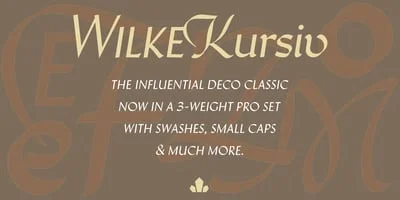
Wilke Kursiv Font
Wilke Kursiv Font is perfect for academic publications, scholarly documents, literary magazines, formal certificates, traditional book covers, classical music programs, heritage museum displays, and prestigious institutional branding.
This font is exciting because it embodies classical scholarship with academic elegance and traditional sophistication. Wilke Kursiv Font features refined italic letterforms with scholarly grace that evoke the distinguished tradition of European academic typography, making it ideal for projects that require intellectual authority and timeless academic prestige.
The Wilke Kursiv Font family includes regular, light, medium, bold, and condensed variants, along with scholarly alternates and classical ligatures that enhance its academic character. Each weight maintains the font's intellectual aesthetic while providing different levels of formal expression for various educational and scholarly design applications.
Whether you're developing prestigious educational brands, creating distinguished academic materials, or designing formal institutional campaigns, Wilke Kursiv Font delivers exceptional scholarship and academic appeal. Its distinctive classical style makes it an excellent choice for designers seeking to add intellectual gravitas and academic sophistication to their projects. The font's versatility extends from university publications to formal documentation, ensuring consistent performance across all scholarly applications. With its meticulously crafted letterforms and academic proportions, this typeface provides professional results that establish scholarly credibility and institutional prestige with its unmistakable academic character and classical European elegance.